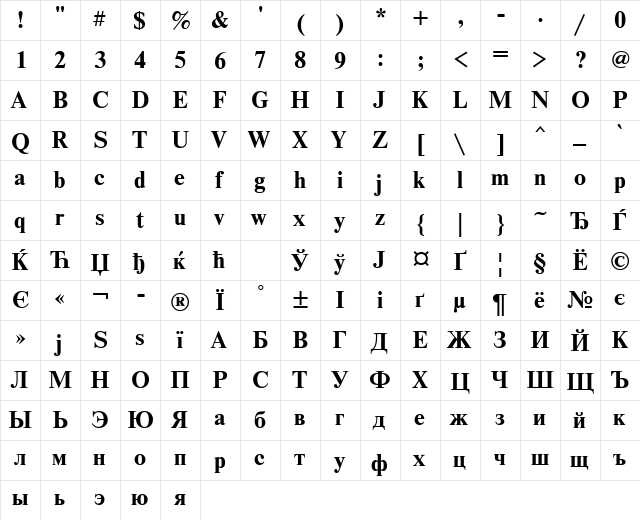
NewtonWINCTT Bold
Design Context for NewtonWINCTT Typeface
NewtonWINCTT offers clean, dependable letterforms without strong stylistic allegiance, making it a practical choice for designers who need flexibility. The heavy weight commands attention and anchors typographic hierarchies.